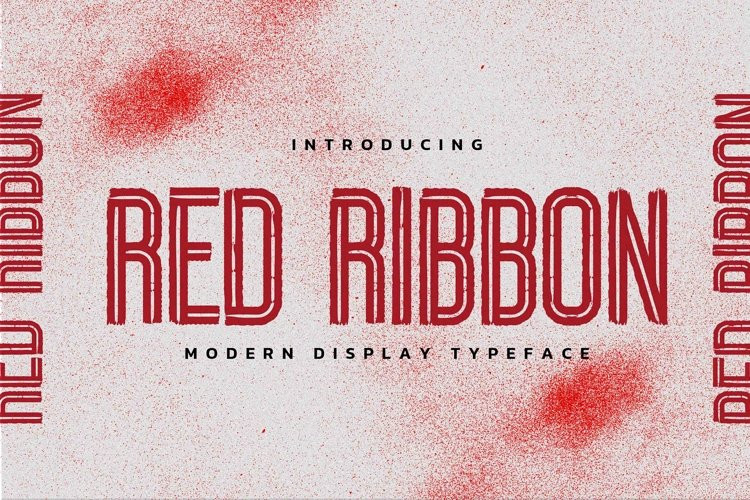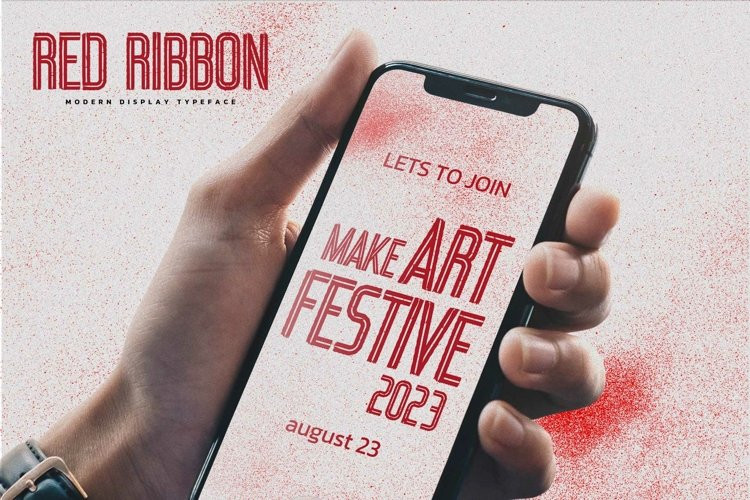
Red Ribbon Font
Red Ribbon FontHello Everyone, introduce our new product Red Ribbon is Modern Display Typeface with a natural feel. This handmade font will make your design has a beautiful natural touch for each details. It is perfect for any design project as Invitation,logo, book cover, craft or any design purposes.
Red Ribbon is Inspired by Food Logo style and combination with Unique Craft style. that will fulfill your design needs for quotes,sporty theme, logotype, wordmark, etc. This has many opentype features and support multi language.